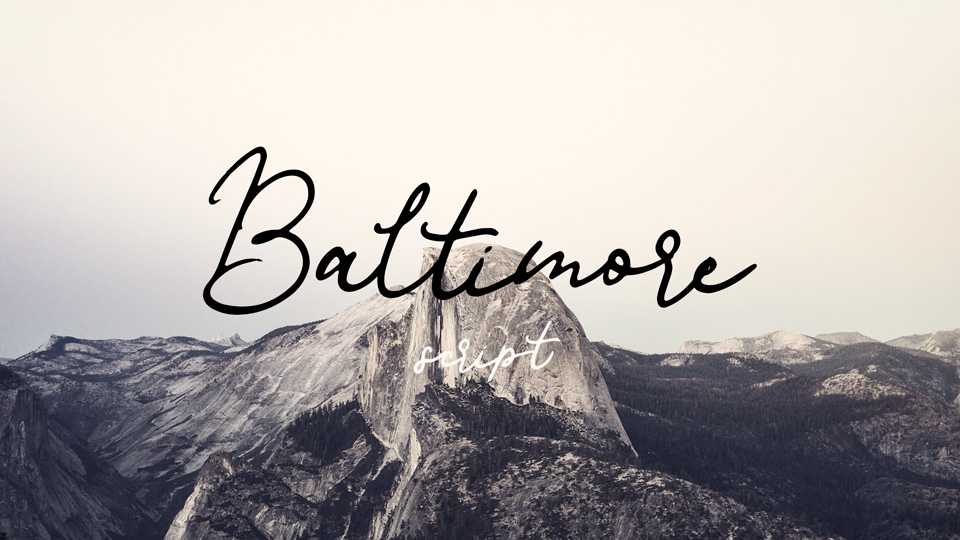
Download Baltimore font, a stylish casual handwritten script. Baltimore font is suitable for cards, letters, social media, notes, quotes and more.
Designer: Hustletter